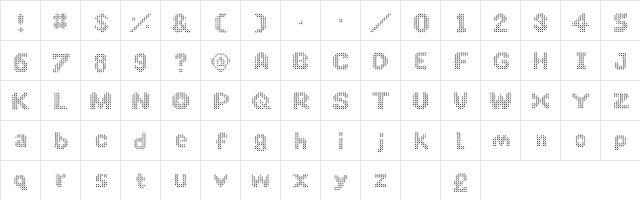
Sweet Home Regular
Design Context for Sweet Home Typeface
Sweet Home is a composed and adaptable typeface that performs quietly and consistently across a wide range of design contexts.